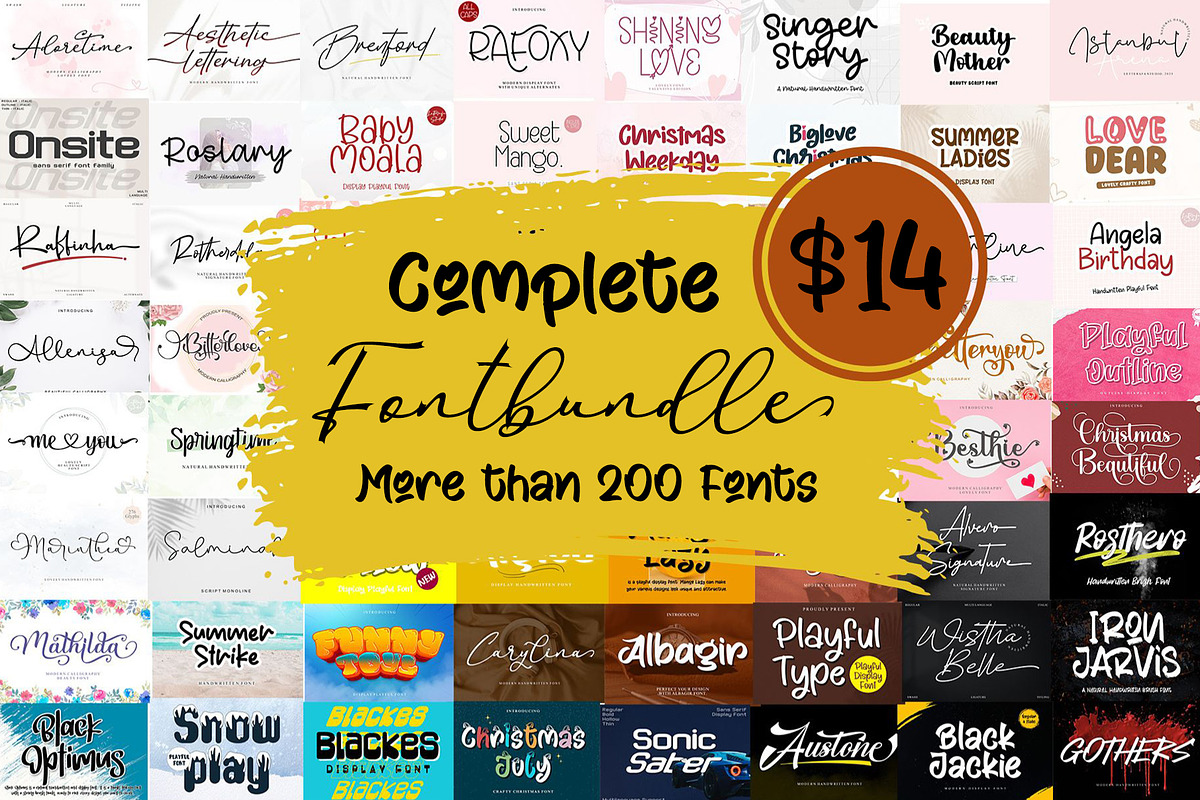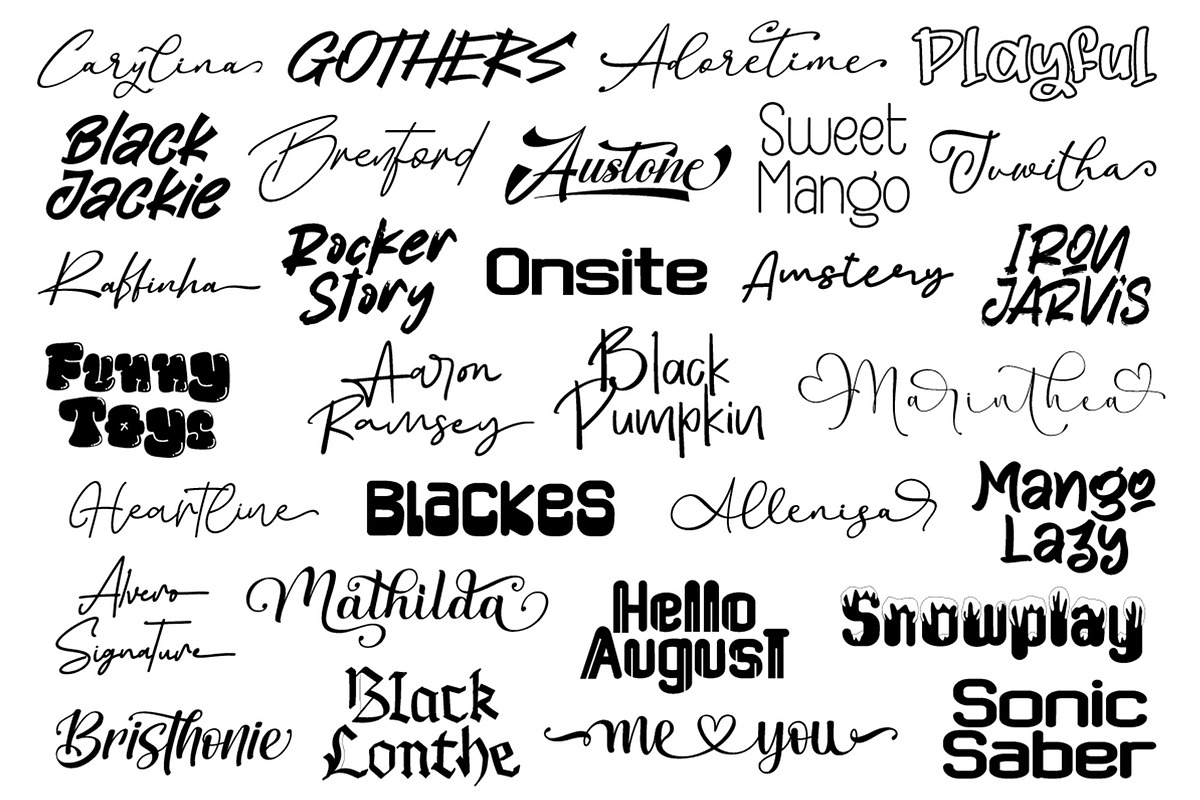
COMPLETE FONTBUNDLE
The Complete Font Collection Bundle comprises the full range of our professionally crafted typefaces, thoughtfully compiled into one comprehensive package. This exclusive bundle offers a wide variety of font styles—including serif, sans-serif, script, display, and handwritten designs—tailored to meet the diverse needs of branding, editorial, packaging, web, and creative design projects. Each font has been meticulously designed to ensure aesthetic consistency, technical precision, and optimal usability. Ideal for design professionals and agencies, making it a valuable and versatile resource for high-quality typographic solutions.
- Support multilingual; ä ö ü Ä Ö Ü ß ¿ ¡
- Titling
- Lowercase and Uppercase